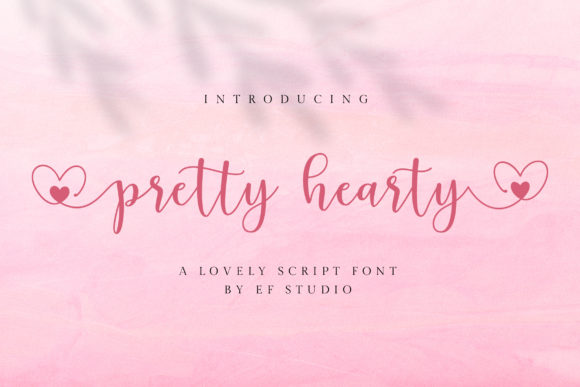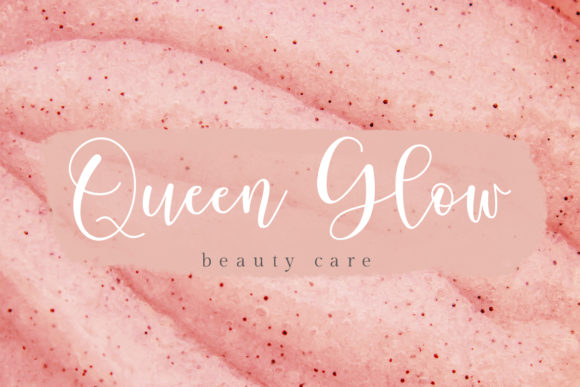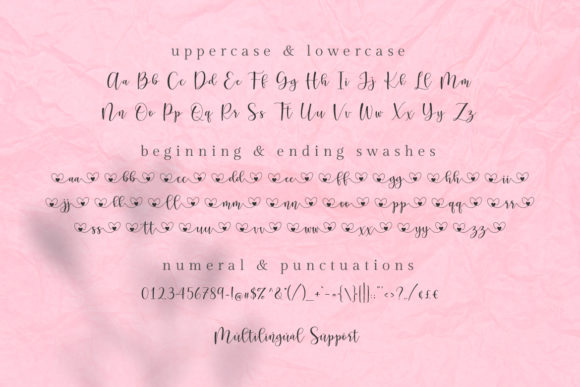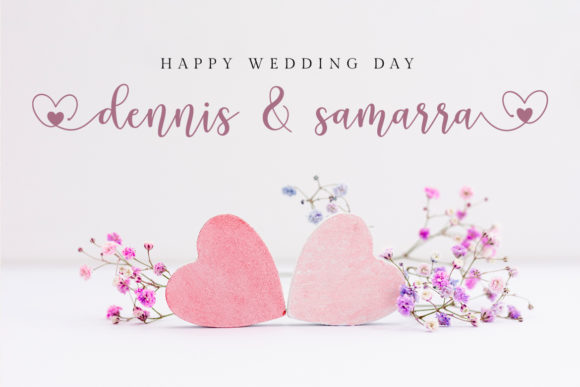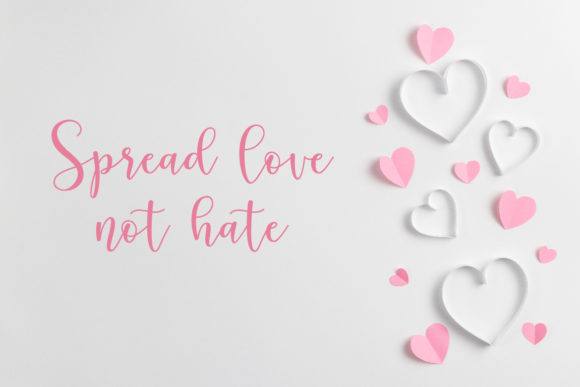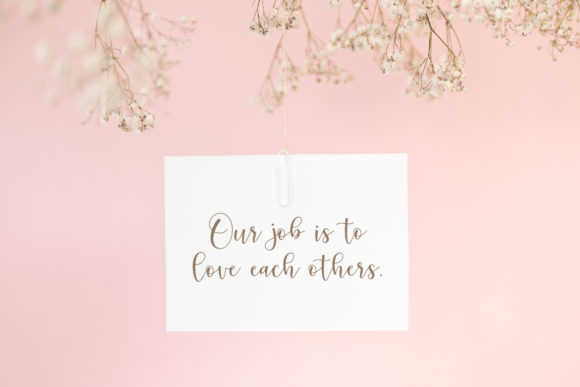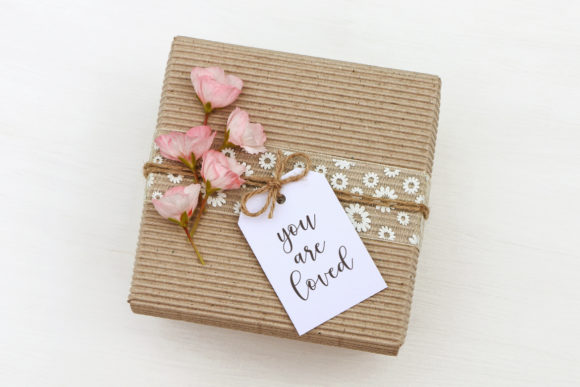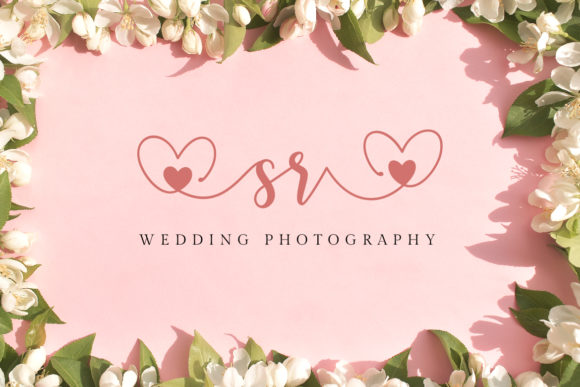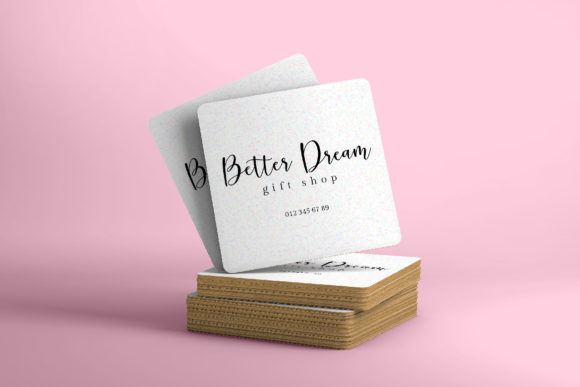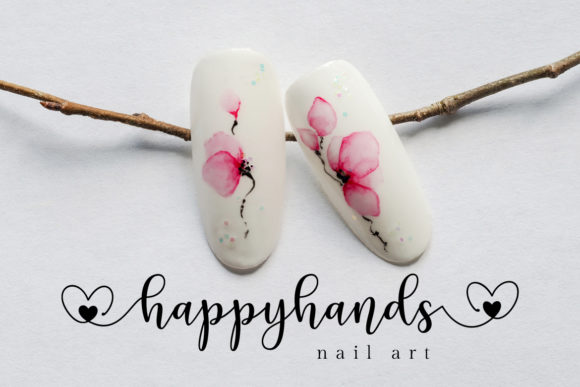
Pretty Hearty Font
About Pretty Hearty Font
Pretty Hearty feels equally charming and elegant. It looks stunning on wedding invitations, thank you cards, quotes, greeting cards, logos, business cards and every other design which needs a handwritten touch.